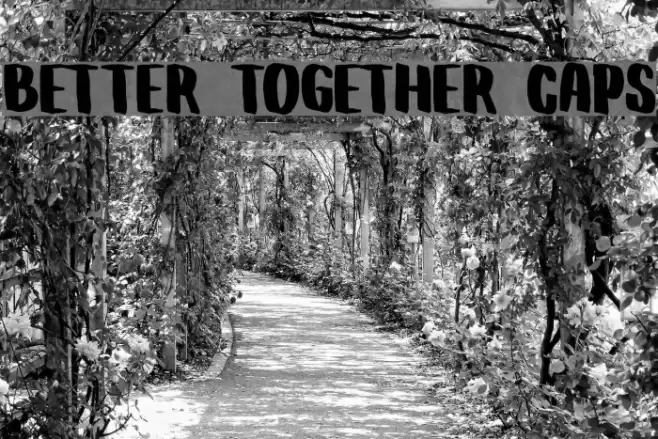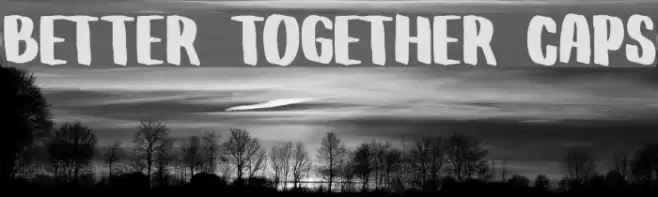
Better Together Caps Font
Better Together Caps Description
This font features bold, expressive characters with a hand-drawn appearance, giving it a playful and artistic vibe. The letters are uppercase with a slightly uneven baseline, adding to its casual and informal style. The strokes are thick and consistent, providing a strong visual impact. The font's design is reminiscent of brush lettering, making it suitable for creative and dynamic projects. Its unique character shapes and bold presence make it stand out, ideal for grabbing attention.
A bold, hand-drawn font with an expressive and playful style from Handwritten fonts.
- Proposed Projects: Ideal for posters, branding, social media graphics, and any project requiring a bold, artistic touch.